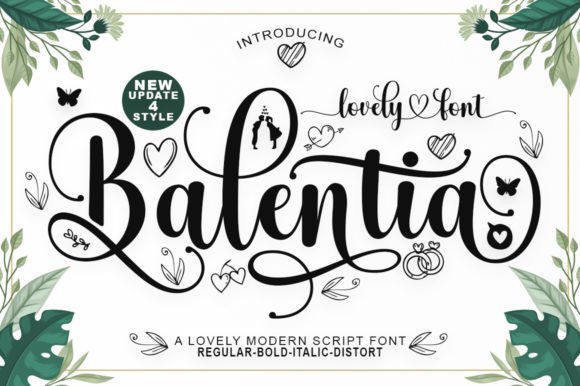
Introduction to Balentia Font
Balentia is a romantic and sweet modern calligraphy typeface with characters dancing along the baseline.
This font is PUA encoded which means you can access all the amazing glyphs and ligatures with ease .
Key Features of Balentia Font